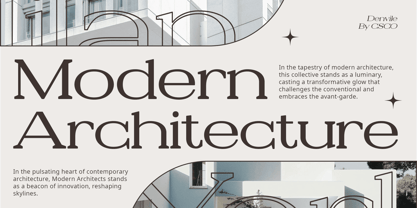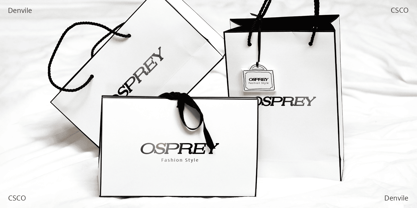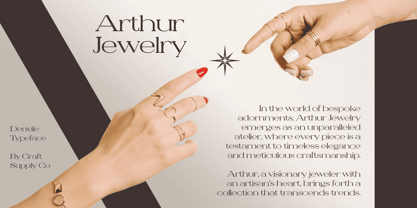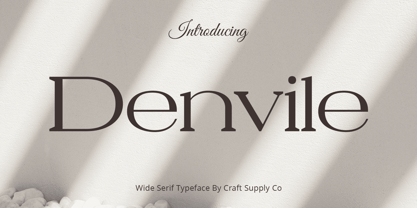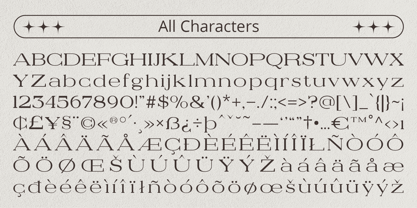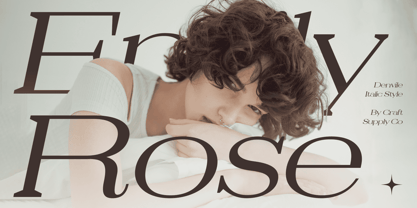
Denvile
by Craft Supply Co
The Denvile Font Family was designed by Trio Nazzar Saputra, Wahyu Hadi Yuana and published by Craft Supply Co. Denvile contains 2 styles and family package options. More about this family
Denvile Font: The Essence of Wide Elegance
Bold and Beautiful
Denvile emerges as a wide serif font, blending boldness with beauty to create a visual symphony that commands attention.
Editorial Excellence
Tailored for editorial mastery, Denvile provides the perfect canvas for text, ensuring a harmonious reading experience.
Elevating Aesthetics
The wide structure of each letter elevates the aesthetics, infusing an inherent charm into the font, making it ideal for sophisticated design projects.
Versatility in Vogue
Beyond its editorial prowess, Denvile proves versatile, seamlessly fitting into a spectrum of design genres, from print to digital, with effortless grace.
Conclusion
Denvile – Wide Serif isn’t just a font; it’s a design statement. Its broad strokes and editorial grace redefine the possibilities of wide serif typography, setting a new standard for elegance and versatility. Elevate your designs with the wide allure of Denvile.